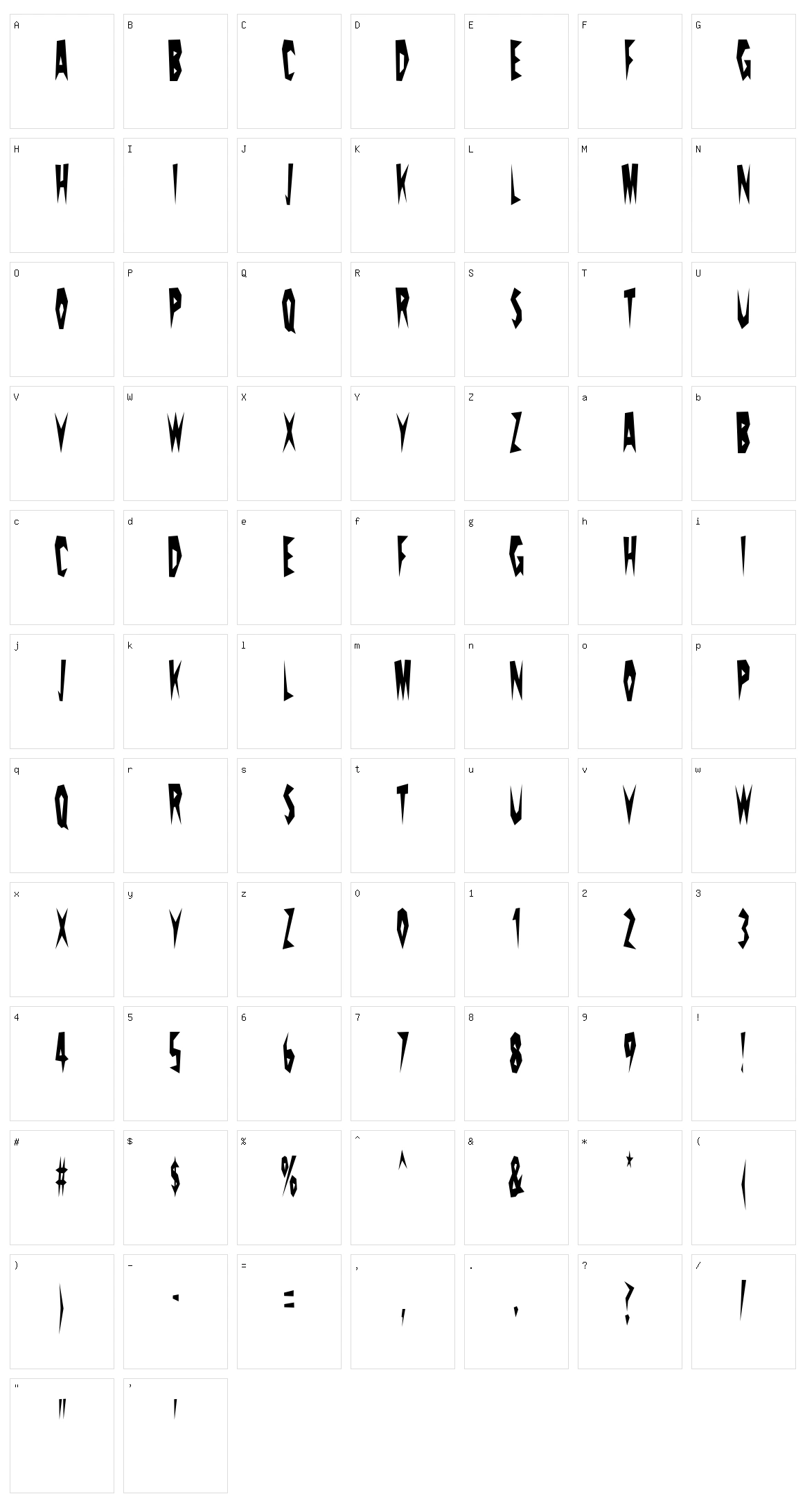
The free font Prickly Pear is carefully designed by Marty Bee, showcasing a thoughtful balance of creativity and usability and falls under the Cartoon font style. When you download the ZIP file, it contains only 5.07 KB of font files, making it lightweight and quick to download. Please review the license details below to understand permitted usage and distribution rights. If license information is not available, we recommend using this font for personal projects only or contacting the author directly for commercial usage permissions.